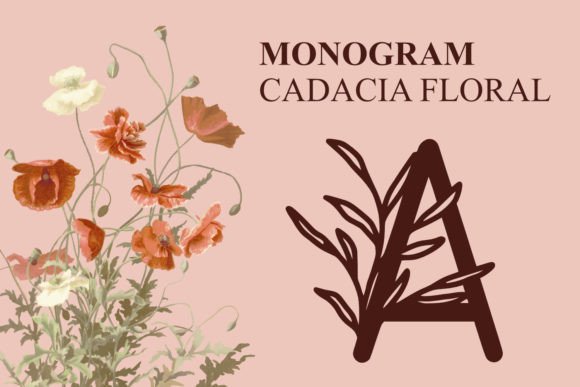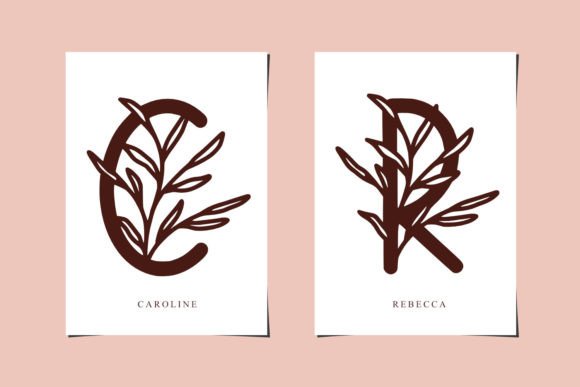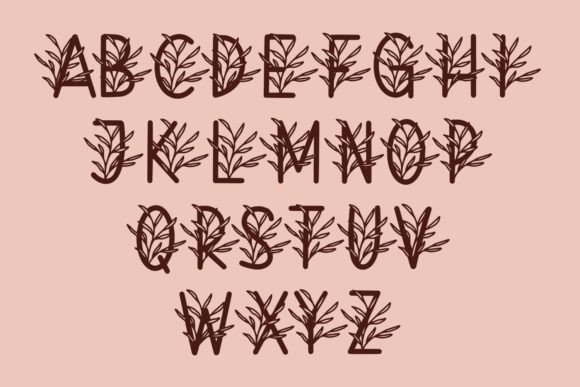
Monogram Cadacia Floral Font
About the Monogram Cadacia Floral Font
Introducing the Monogram Cadacia Floral Font, a beautifully crafted typeface designed to elevate your creative projects. Monogram Cadacia Font is a beautiful monogram font. This font will add a feeling of love to any craft idea, be it wedding crafts, invitations, greeting cards, Valentines, logos, and others
Its elegant, slightly playful character makes Monogram Cadacia Floral Font ideal for logos, wedding stationery, and branding projects requiring a touch of romance. It works exceptionally well in headlines, short quotes, and as an accent font for packaging design. However, its decorative nature makes it unsuitable for body text or UI elements where readability is paramount. Avoid using it for large blocks of text.
Pairing it with a clean sans-serif like Open Sans for body copy, or a classic serif like Garamond for a more traditional feel, will create a balanced and sophisticated design. For a more modern aesthetic, consider pairing it with a geometric sans-serif such as Montserrat.
The font’s overall personality is best described as romantic and sophisticated, but with a playful undercurrent.
Monogram Cadacia Floral Font Usage Examples
Monogram Cadacia Floral Font Example